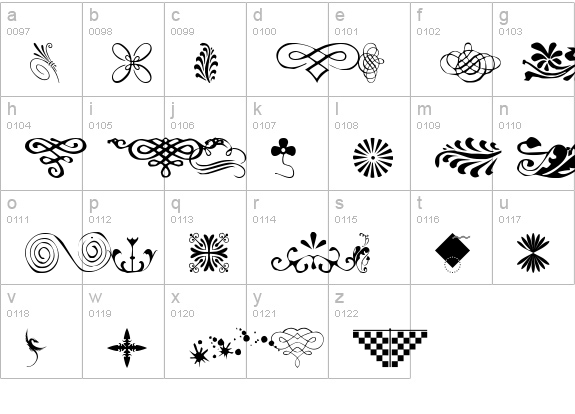
The wmdesigns1 font is a stunning display typeface that exudes elegance and sophistication. With its unique design elements and sleek lines, this font is perfect for adding a touch of class to any project. Whether you're creating a logo, website, or print materials, wmdesigns1 will make your text stand out and leave a lasting impression on your audience. The best part? This exquisite font is available for free download at FontsMarket.com. Now you can elevate your design projects without breaking the bank. Don't miss out on the opportunity to add wmdesigns1 to your font collection and take your designs to the next level. Download it today and let your creativity shine!